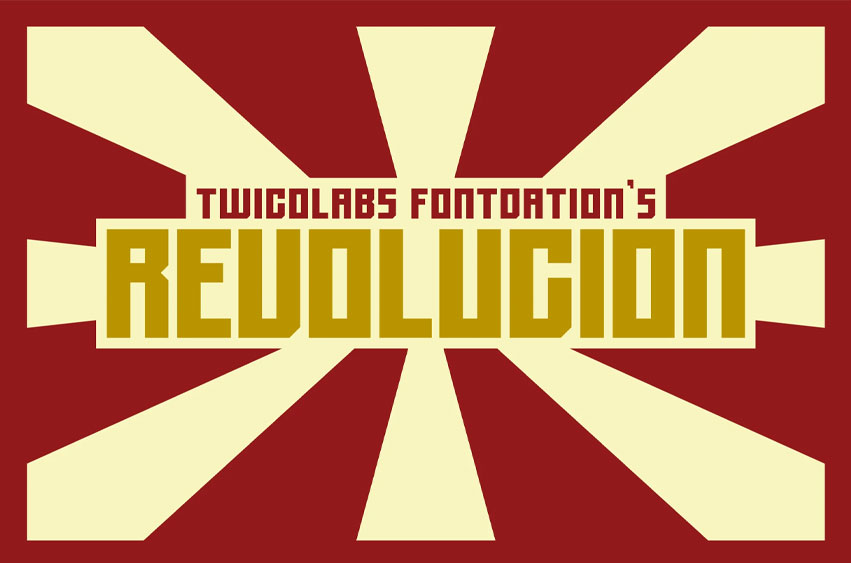
TF Revolucion Font is a bold and blocky font. Influenced by letters that are used by old Soviet propaganda medias.
Suits best or a design that needs a strong hit at a first sight, ex: posters. t-shirt designs, banner, signage, labels, etc.